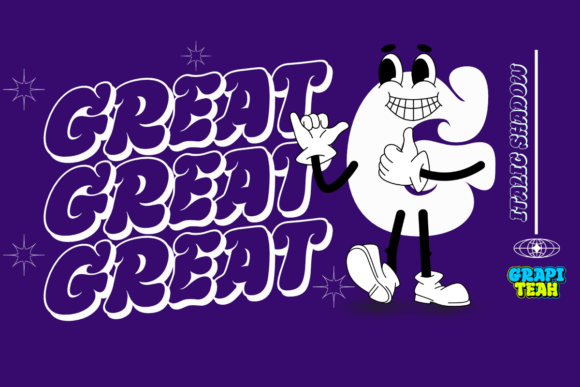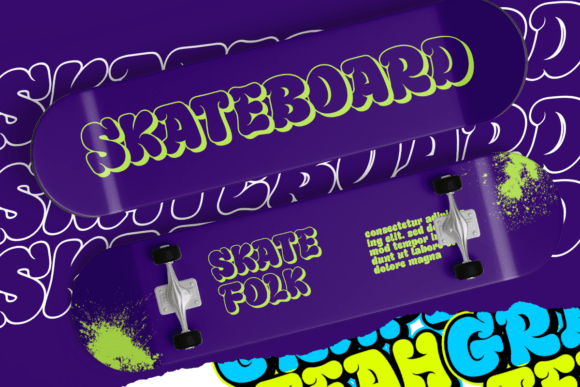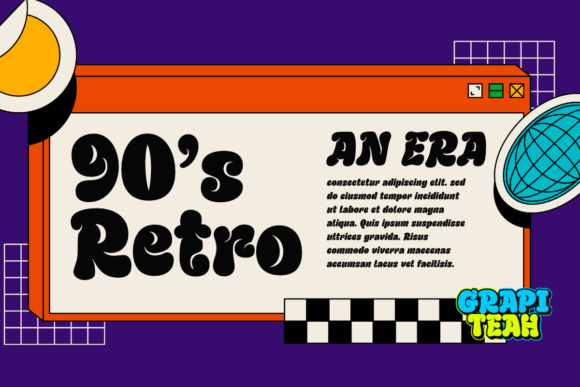
Introduction to Grapiteah Font
Presenting Grapiteah, a font influenced by the unfiltered vitality and lively essence of graffiti street art.
Consisting of six unique styles – Regular, Outline, Shadow, and their corresponding Italics, Grapiteah promises a diverse arsenal for your creative endeavors It’s perfect for curating stunning visuals, creating distinctive logos, or establishing your newest brand identity.
Grapiteah Font offers exceptional quality and versatility, making it a valuable addition to your design toolkit. Whether you’re creating for personal projects or commercial use, Grapiteah Font delivers professional results.